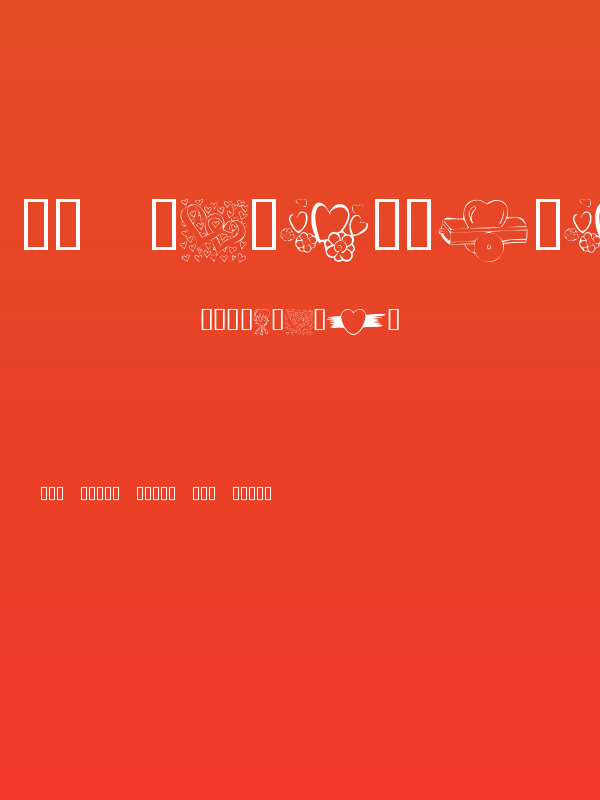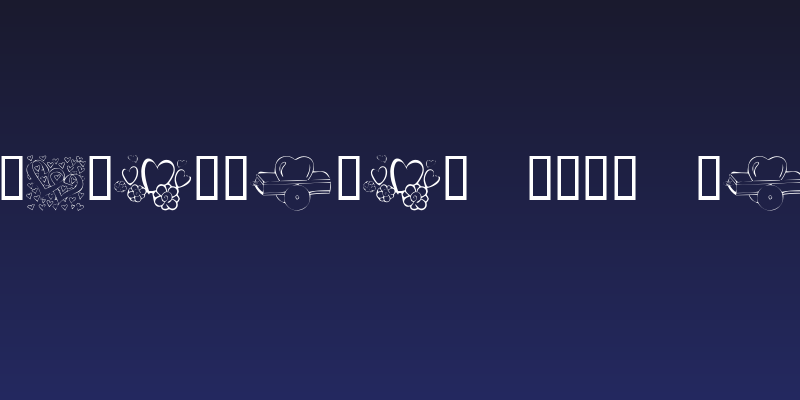
KR Valentines 2006 Nine Font
KR Valentines 2006 Nine Description
This is a decorative font featuring a series of romantic and playful designs, each character represented by a unique illustration. The designs include hearts, flowers, and other Valentine-themed elements, making it ideal for projects that require a whimsical and affectionate touch. The font is not composed of traditional alphanumeric characters but rather a collection of themed graphics, each with its own distinct style and flair. The overall appearance is charming and festive, perfect for adding a personal and creative touch to Valentine's Day cards, invitations, or any project celebrating love and romance.
Use CaseLogos, Decorative elements
Proposed ProjectsIdeal for Valentine's Day cards, romantic invitations, themed scrapbooking, and festive decorations.